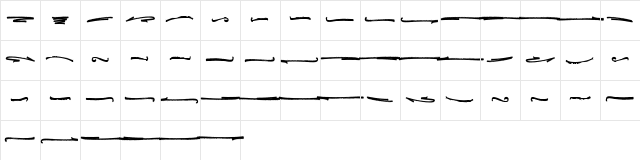
Emilly Stories Swash Regular
Design Context for Emilly Stories Swash Typeface
Emilly Stories Swash brings a calligraphic fluidity to the page — its connecting strokes and expressive curves give it an unmistakably human quality.
Font Pairing: Combine Emilly Stories Swash with a simple geometric sans for maximum contrast — the tension between flowing curves and clean structure is a classic typographic pairing.
Pro Tip: Pair Emilly Stories Swash with a clean sans-serif for supporting text. The contrast between fluid script and geometric structure creates an elegant typographic hierarchy.